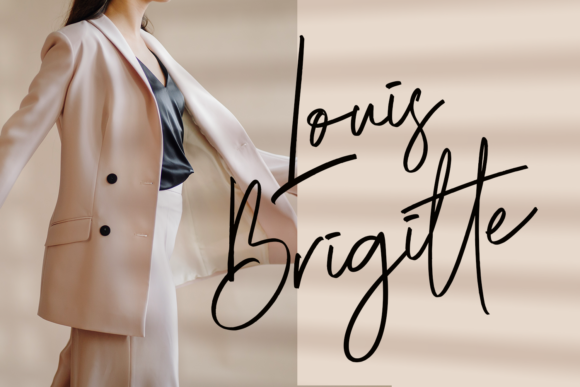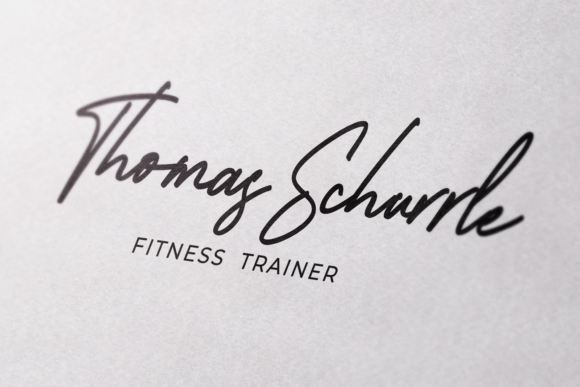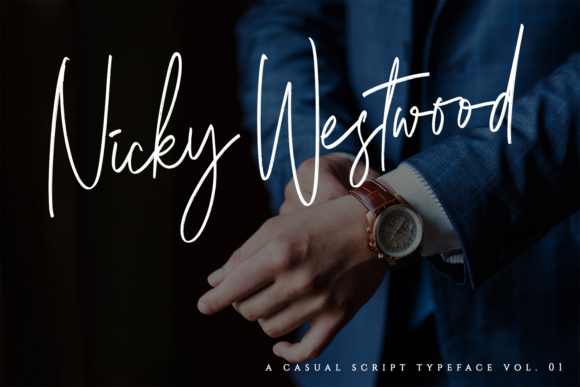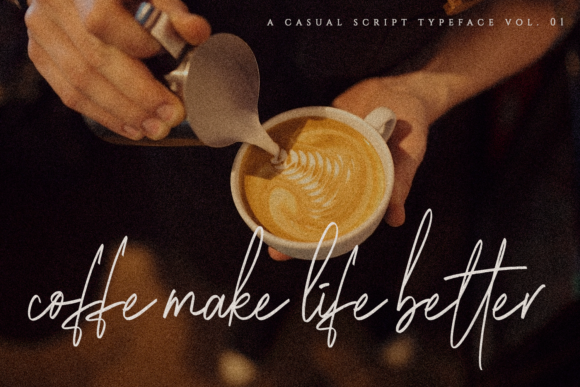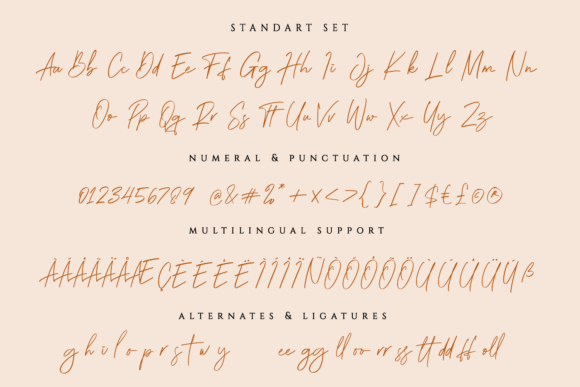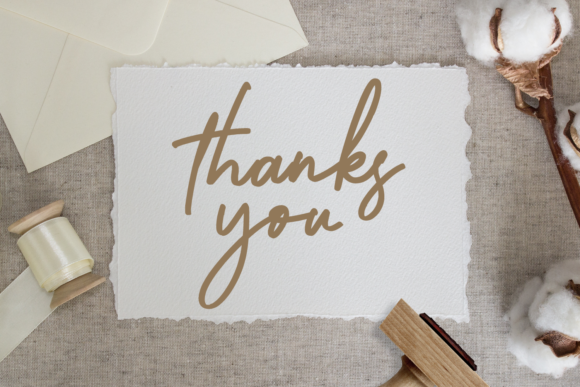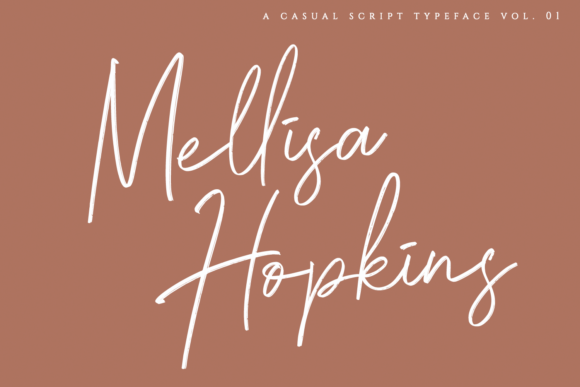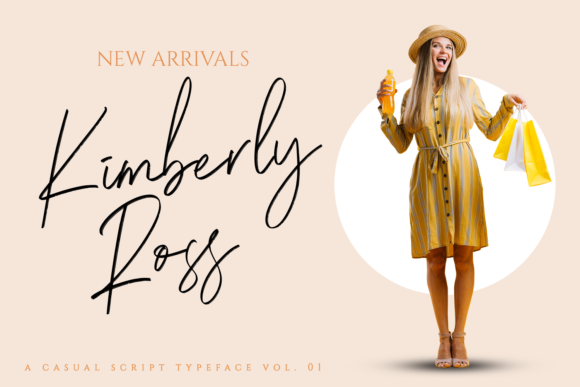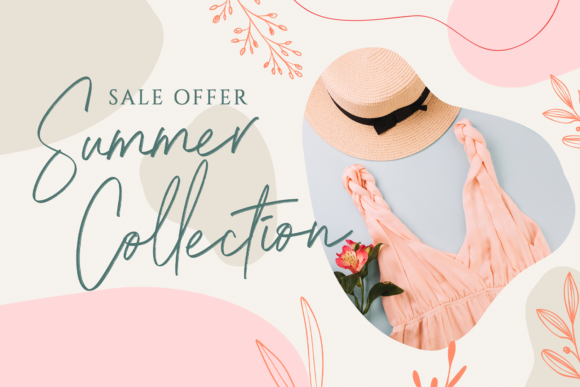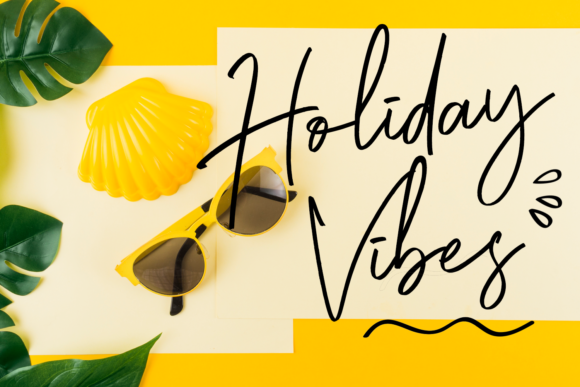
Brightness Font
About Brightness Font
Brightness is an incredibly distinct, delicate and timeless handwritten font. It looks stunning on wedding invitations, thank you cards, quotes, greeting cards, logos, business cards and every other design which needs a handwritten touch.